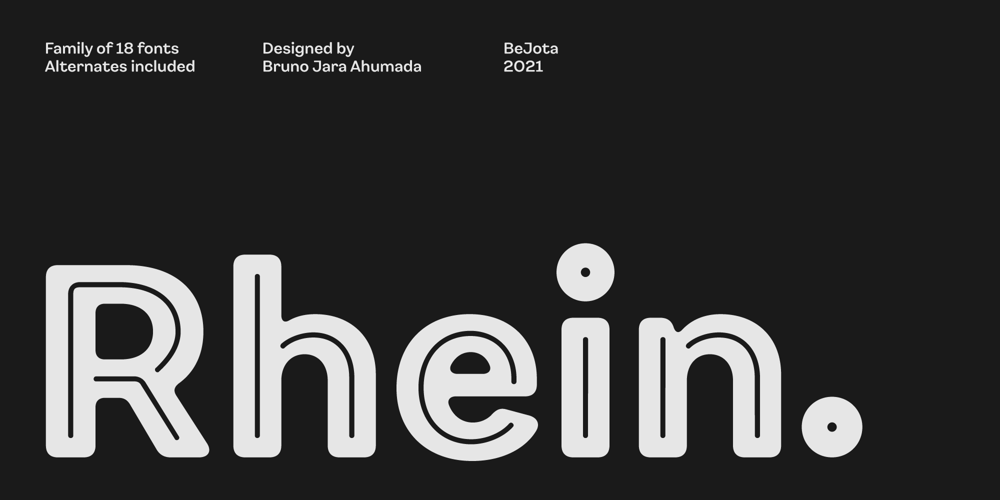
Rhein
Rhein font
Rhein Font Family was designed by Bruno Jara Ahumada and published by BeJota. Rhein contains 18 styles and family package options. Rhein is named after the German river that runs through the western border valley. Rhein is a sans-serif typeface family for titles, editorials and graphic design pieces with high impact needs. Rhein was not only conceived as a font design with rounded corners, but its intersection points have been also smoothed. In addition, the wide range of 8 weights that vary from Thin to Black allow relatively long continuous reading (Regular, Medium, Semibold), and short reading designs (Black, Bold, Thin). On the other hand, the “Inline” variant is extremely provocative to fit into any branding project. To add dynamism and to expand the typeface range of use, it was designed as a family of alternatives. Together, the 18 styles of “Rhein” provide a range of options that adjust to the needs and current design and advertising trends.